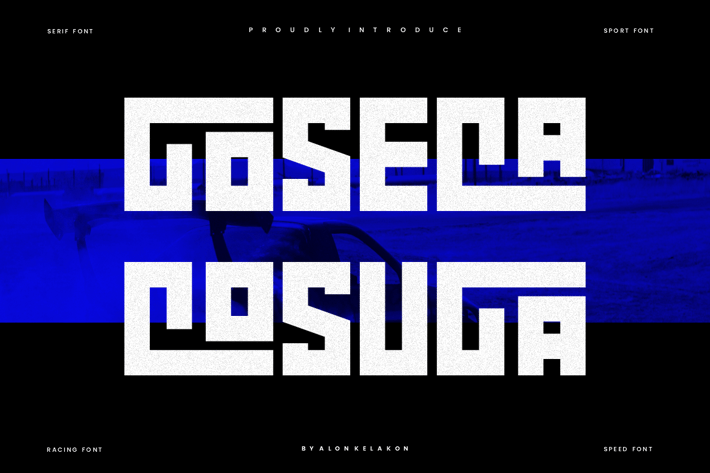
Goseca Cosuga - Sport & Racing Font
Goseca Cosuga Font is unique . Ready to use for your design like labeling, movie sceen, poster, movie title, gigs, album covers, logos, and much more.